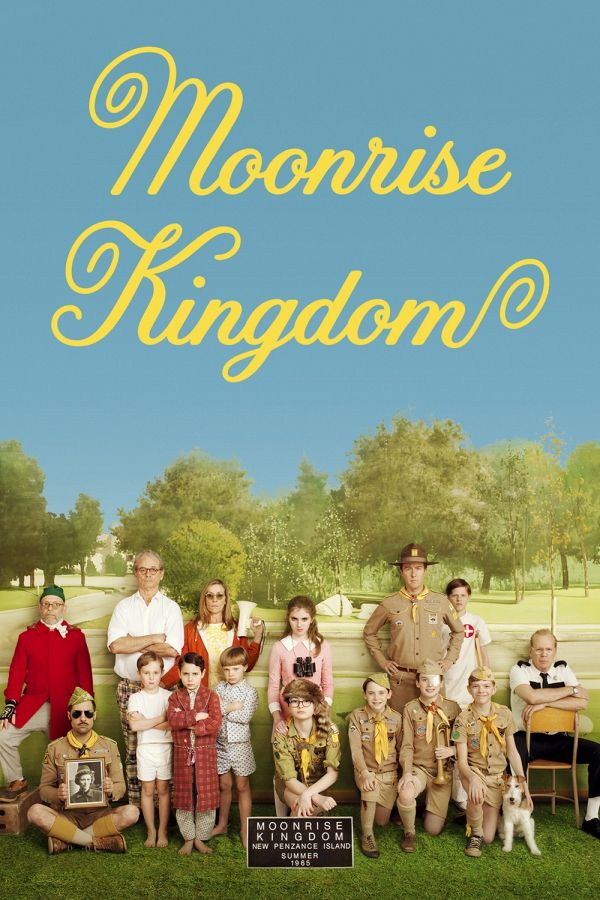
Moonrise Kingdom Font
DramaMoonrise Kingdom is a 2012 American romantic comedy-drama film directed by Wes Anderson. Set in 1965, the film tells the story of two young lovers who run away together and the search party that tries to find them.
The film title in the poster uses a font similar to Tilda, a formal script typeface created by Jessica Hische, based on the title of the film "La Femme infidèle" (1969). You can find more details about the font here.